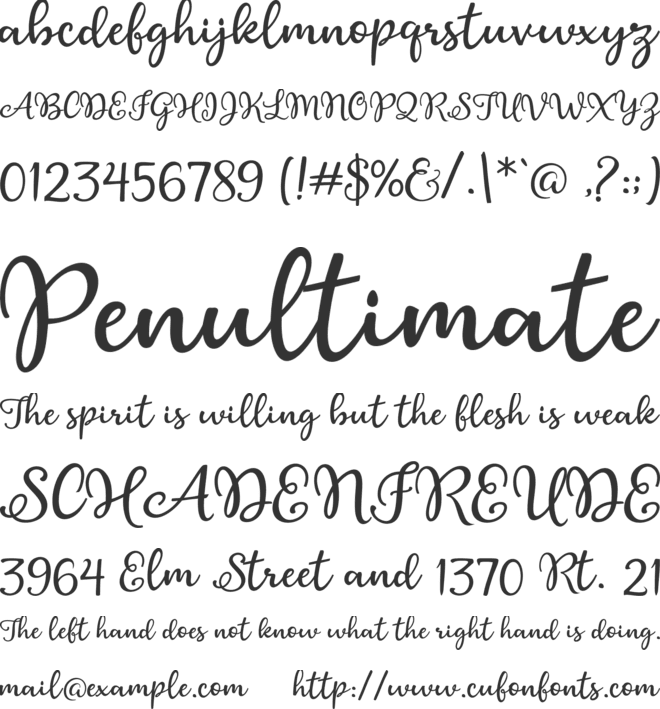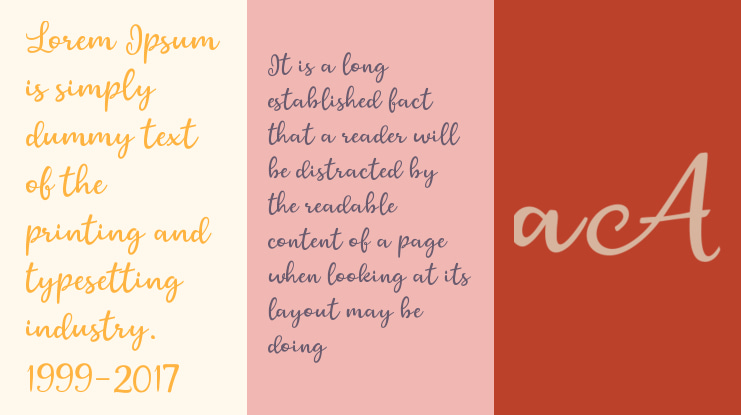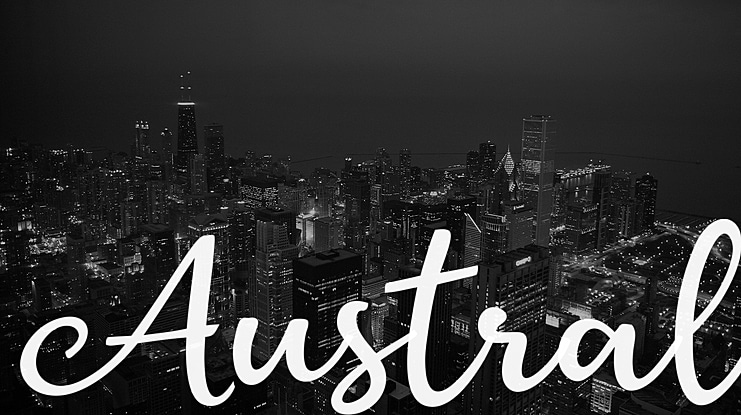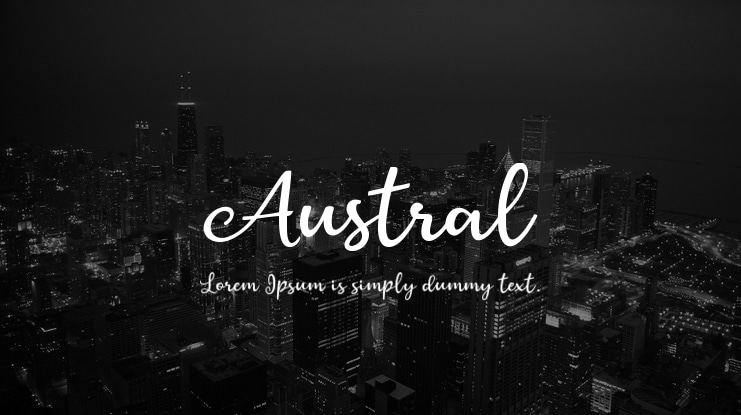
Austral Font
Austral is a Script font that has a varied base line, fine lines, classic, elegant, modern touch. Can be used for various purposes.
if you want to use for your work this font can be used easily and simply because there are a lot of features in it to contain a complete set of letters lower and including initial and terminal letters, alternates, ligatures and multiple language support.